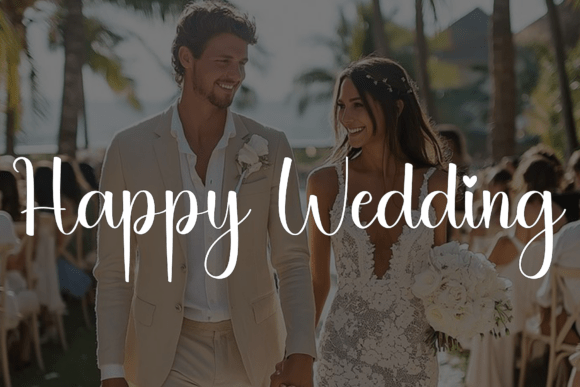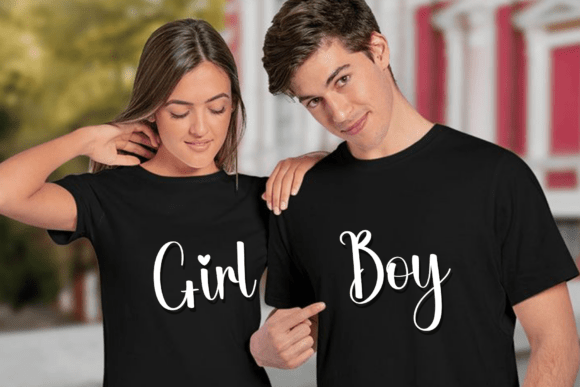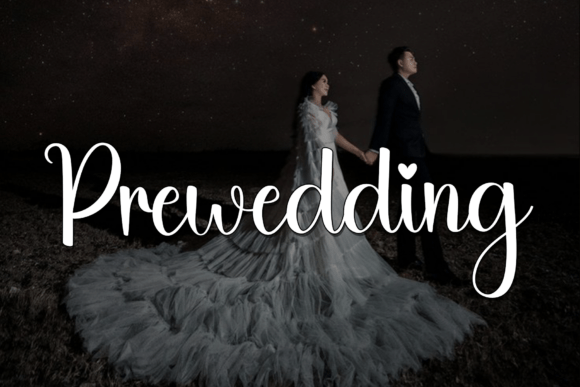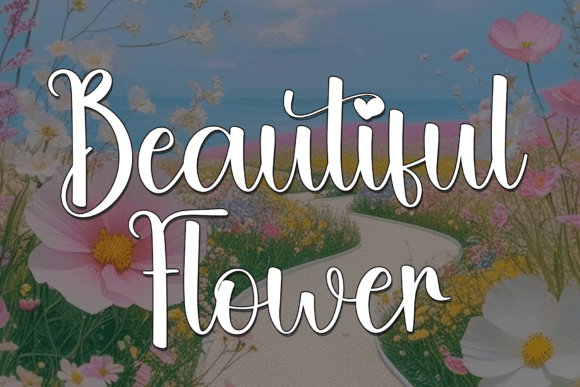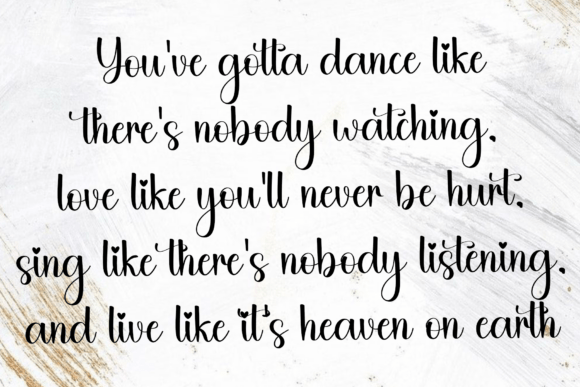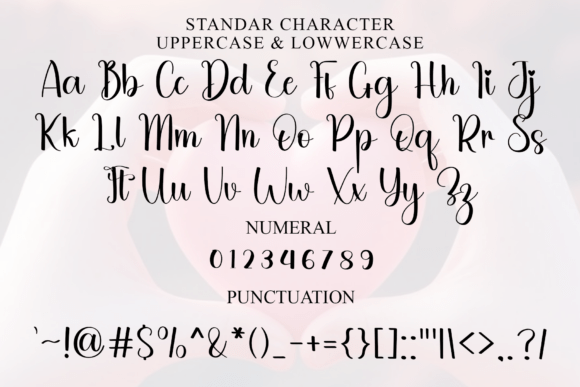
Cute Barbie Font: Elevate Your Designs with a Touch of Elegance
In the world of design, fonts play a crucial role in conveying the message and aesthetic of a project. Among the myriad of fonts available, the Cute Barbie font stands out for its unique blend of softness and distinctiveness. This beautiful font is designed to add a special touch to any design project, making it a favorite among designers and crafters alike.
What Makes Cute Barbie Font Special?
The Cute Barbie font is characterized by its soft, unique touch that sets it apart from more traditional fonts. Its distinctive strokes give it a special character, making it not only visually appealing but also highly versatile for future use. Whether you’re working on a design project, crafting, or any other creative work, this font is sure to enhance your creations.
Versatility and Compatibility
One of the key advantages of the Cute Barbie font is its versatility. It comes with a variety of characters, making it suitable for a wide range of design projects. From digital graphics to print materials, this font can be used to create visually appealing content that captures the attention of your audience.
Ideal for Design Projects and Crafts
For designers and crafters, finding the right font can be a challenge. The Cute Barbie font is ideal for a wide range of products, including:
- Digital graphics and illustrations
- Print materials such as brochures, posters, and business cards
- Crafts, including handmade cards, scrapbooking, and DIY projects
- Web design, including website headers, logos, and social media graphics
Its natural font style and distinctive strokes make it perfect for adding a touch of elegance and sophistication to your designs.
Enhance Your Designs with Cute Barbie Font
The Cute Barbie font is designed to make your designs more appealing to a wide range of audiences. Its soft and unique touch can add a touch of personality to your creations, making them stand out in a crowded market.
Whether you’re a professional designer or a crafter, this font is sure to inspire your creativity. With the Cute Barbie font, you can:
- Create visually appealing graphics and illustrations
- Add a touch of elegance to your print materials
- Make your crafts and DIY projects more special
- Enhance your web design with a unique and distinctive font
In conclusion, the Cute Barbie font is a beautiful and eye-catching font that can elevate your designs with a touch of elegance. Its distinctive strokes, versatility, and compatibility make it a valuable asset for designers and crafters. Whether you’re working on a design project, crafting, or any other creative work, this font is sure to inspire your creativity and enhance your creations.